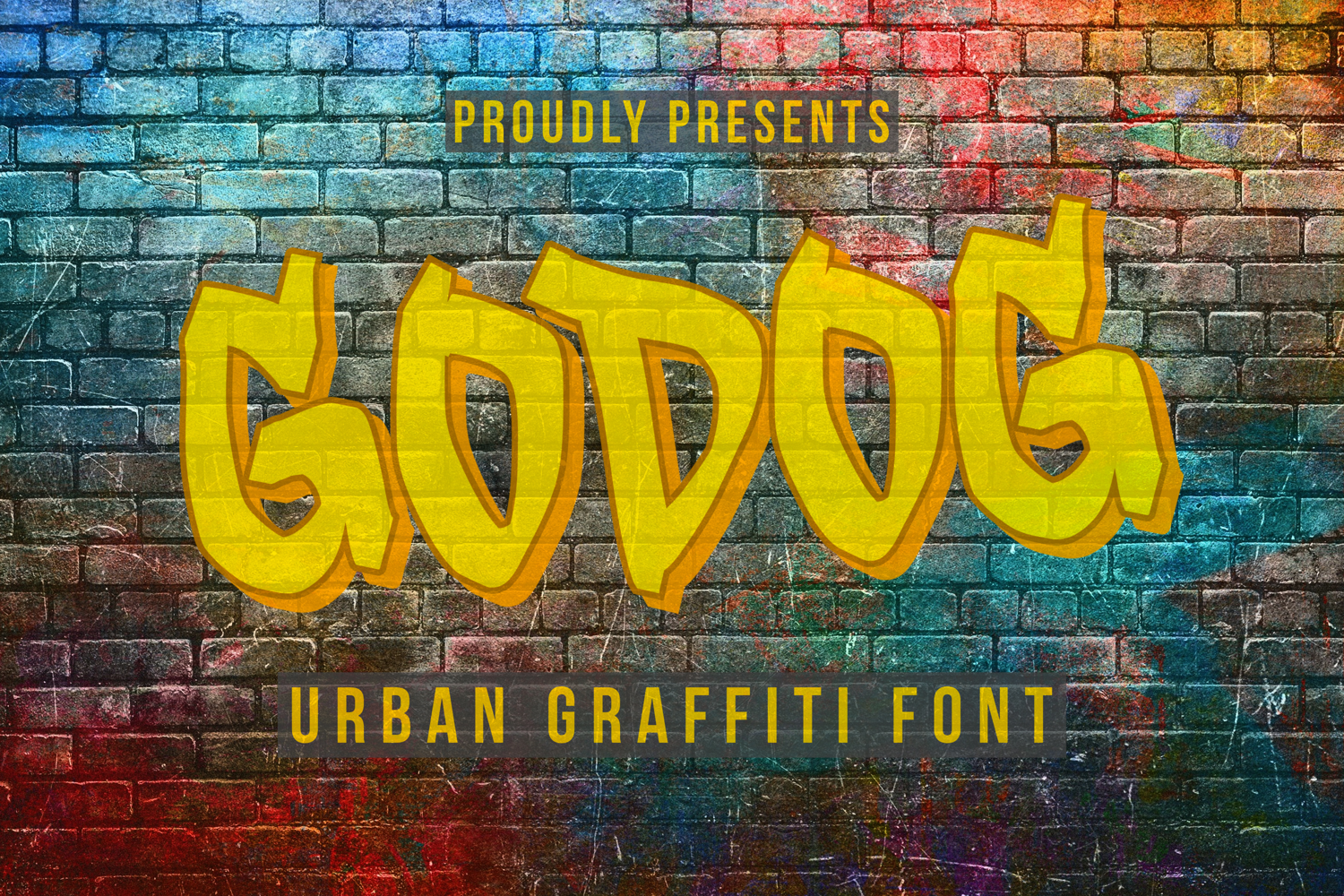
Godog - Urban Graffiti Display Font
GODOG
Godog captures the raw energy of urban graffiti culture, featuring bold overlapping letterforms, thick outlines, and a rebellious street-art attitude. Designed with a dynamic flow and authentic tag-style aesthetics, this font brings an edgy, vibrant, and underground feel to your creative projects.
Whether you are designing hip-hop event posters, bold urban clothing, radical skateboard stickers, gaming channels, or powerful modern branding, Godog delivers the perfect punch to make your artwork stand out on the streets and screens alike.
Perfect For:
• Graffiti & Street Art Themes
• Urban Apparel & Streetwear Brands
• Music Album Covers (Hip-hop, Rap, Punk, Rock)
• Skateboard Graphics & Stickers
• Event Posters, Flyers, and Large Display Headlines
• Gaming Logos & YouTube Thumbnail Designs